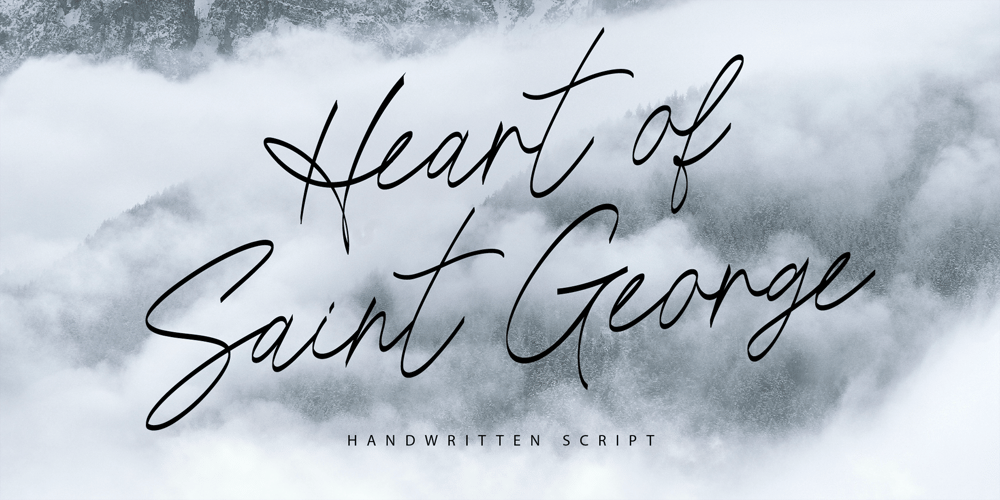
Heart of Saint George
Heart of Saint George font
Heart of Saint George Font Family was designed by Ekaterina Chernysheva and published by Chekart. Heart of Saint George contains 1 styles and family package options. Heart of Saint George is elegant handwritten calligraphic font. It comes with uppercase and lowercase characters, a set of punctuation marks, numbers, Cyrillic characters, ligatures and multilingual support.Ideal for logos, quotes, posters, branding projects, product packaging, t-shirt, book cover, greeting cards and applicable for any graphic design.